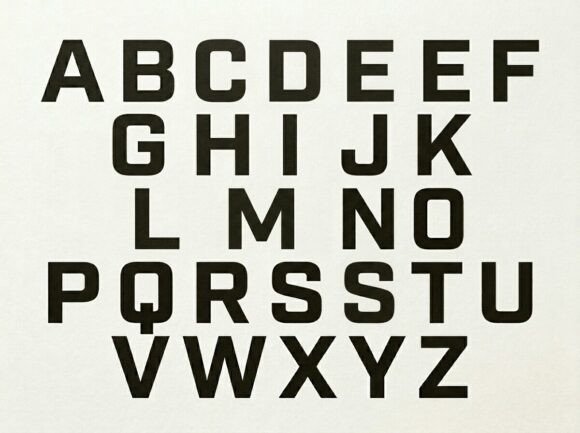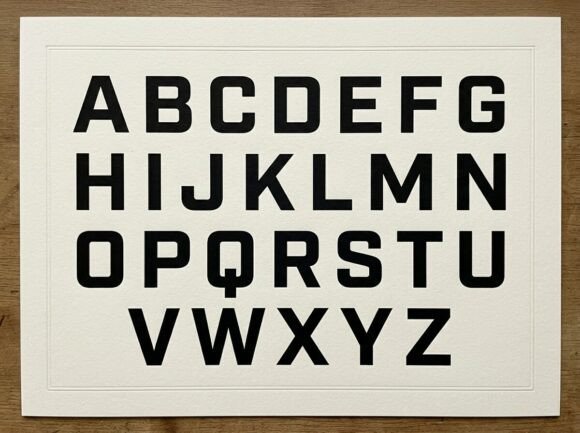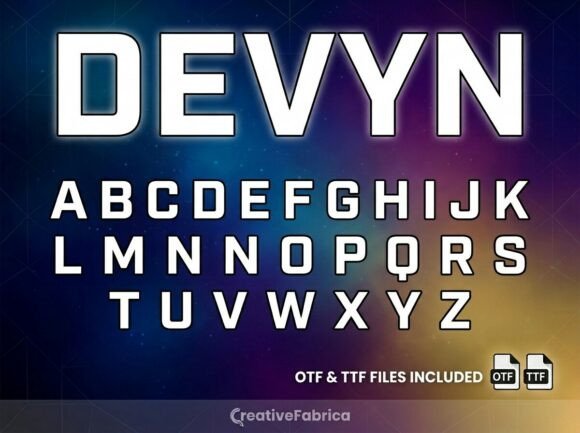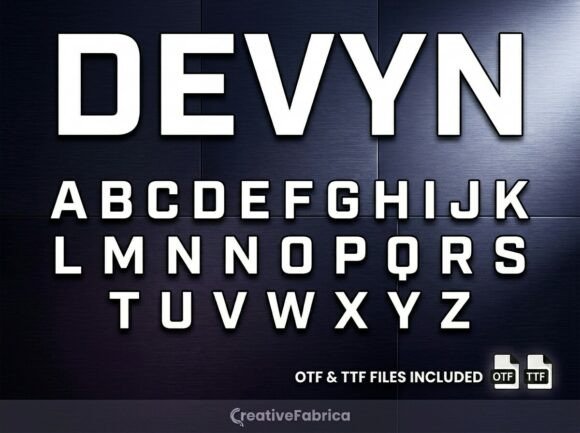
Introducing Devyn Font: A Stunning Decorative Display Font
Are you tired of using the same old fonts for your creative projects? Look no further than Devyn Font, a breathtaking decorative display font that’s sure to turn heads. Designed to be the center of attention, this font boasts unique artistic elements and a strong visual personality that will elevate your designs to the next level.
What Makes Devyn Font Special?
Devyn Font is a versatile decorative font that’s perfect for creators who want to break away from the ordinary. Its stunning design makes it ideal for bold headlines, artistic logos, and creative packaging, while maintaining a professional and polished finish. Whether you’re a designer, crafty DIY enthusiast, or entrepreneur, this font is sure to inspire your next creative project.
Before making a purchase, please note that Devyn Font is an ALL-CAPS (Uppercase Only) display typeface. This means that it does not include lowercase letters. It’s specifically designed for high-impact headlines, logos, and decorative initials where every letter is a work of art.
Use Cases for Devyn Font
Devyn Font is perfect for a variety of creative projects, including:
- Bold Headlines: Make a statement with eye-catching headlines that demand attention.
- Artistic Logos: Create a unique and memorable brand identity with a custom logo that stands out from the crowd.
- Creative Packaging: Add a touch of elegance and sophistication to your product packaging with Devyn Font.
- Social Media Graphics: Elevate your social media presence with stunning graphics that showcase your brand’s personality.
Tips for Using Devyn Font
To get the most out of Devyn Font, here are a few tips to keep in mind:
- Use it sparingly: Devyn Font is designed to make a statement, so use it sparingly to avoid overwhelming your design.
- Experiment with colors: Try pairing Devyn Font with bold colors to create a truly eye-catching design.
- Mix and match: Combine Devyn Font with other fonts to create a unique and visually appealing design.
Devyn Font is a stunning decorative display font that’s perfect for creators who want to add a touch of elegance and sophistication to their designs. With its unique artistic elements and strong visual personality, this font is sure to turn heads. Whether you’re a designer, crafty DIY enthusiast, or entrepreneur, Devyn Font is a versatile and professional font that’s sure to inspire your next creative project.